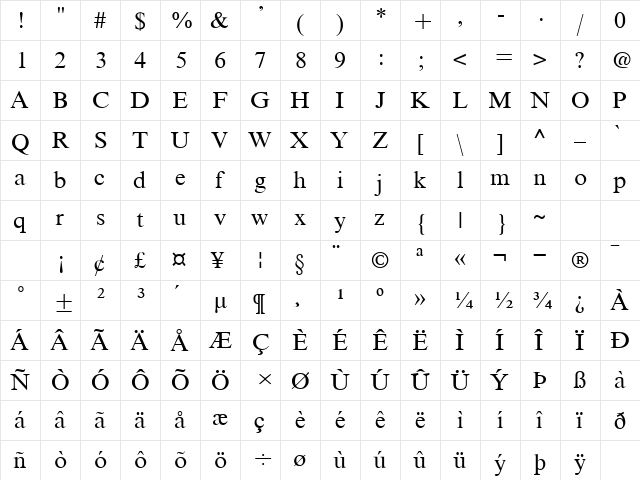
ORTimes-Roman-AA Normal
Design Context for ORTimes-Roman-AA Typeface
ORTimes-Roman-AA offers clean, dependable letterforms without strong stylistic allegiance, making it a practical choice for designers who need flexibility.
Pro Tip: Pair ORTimes-Roman-AA with a font of contrasting weight or personality to build a more expressive typographic hierarchy.